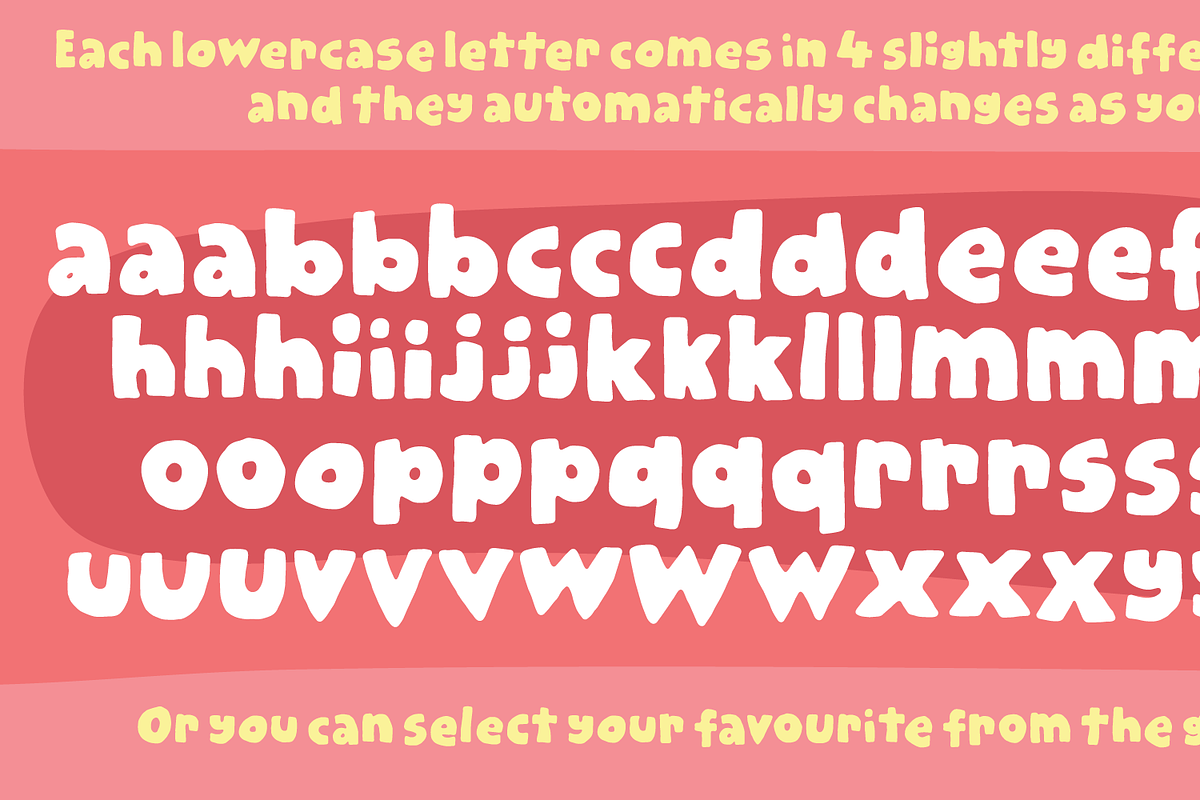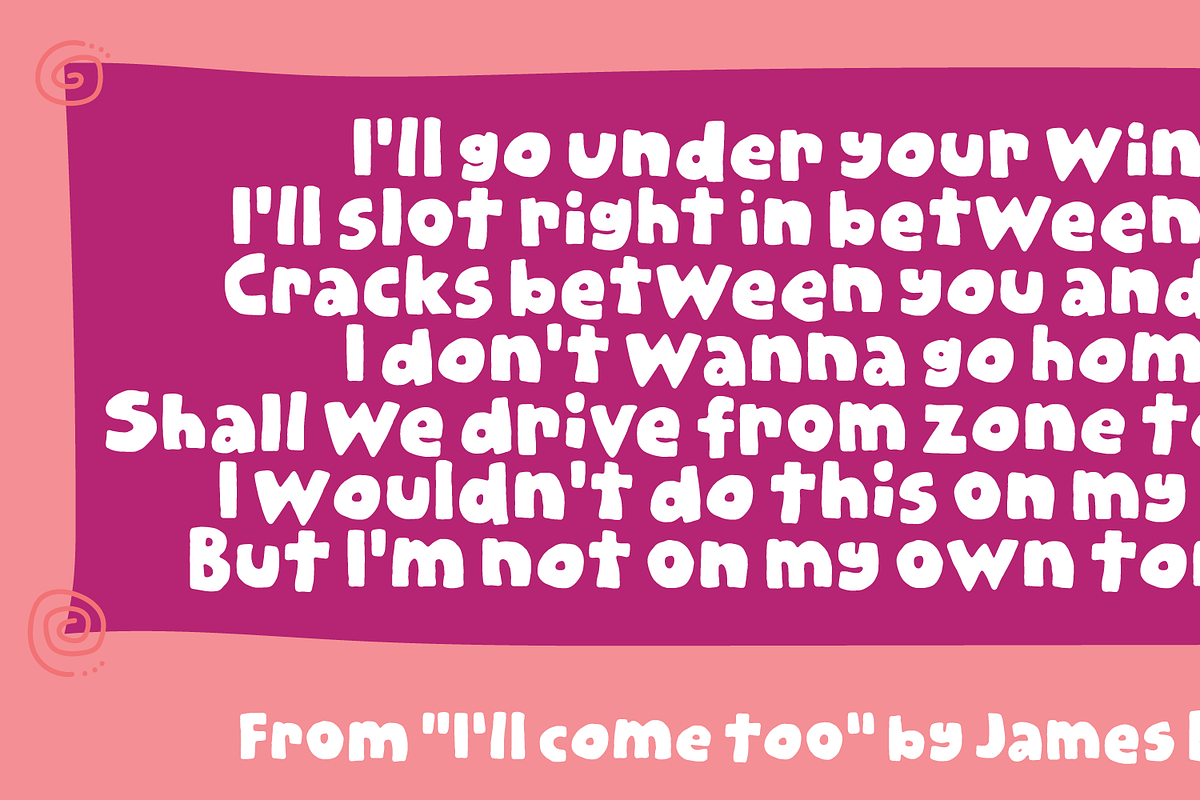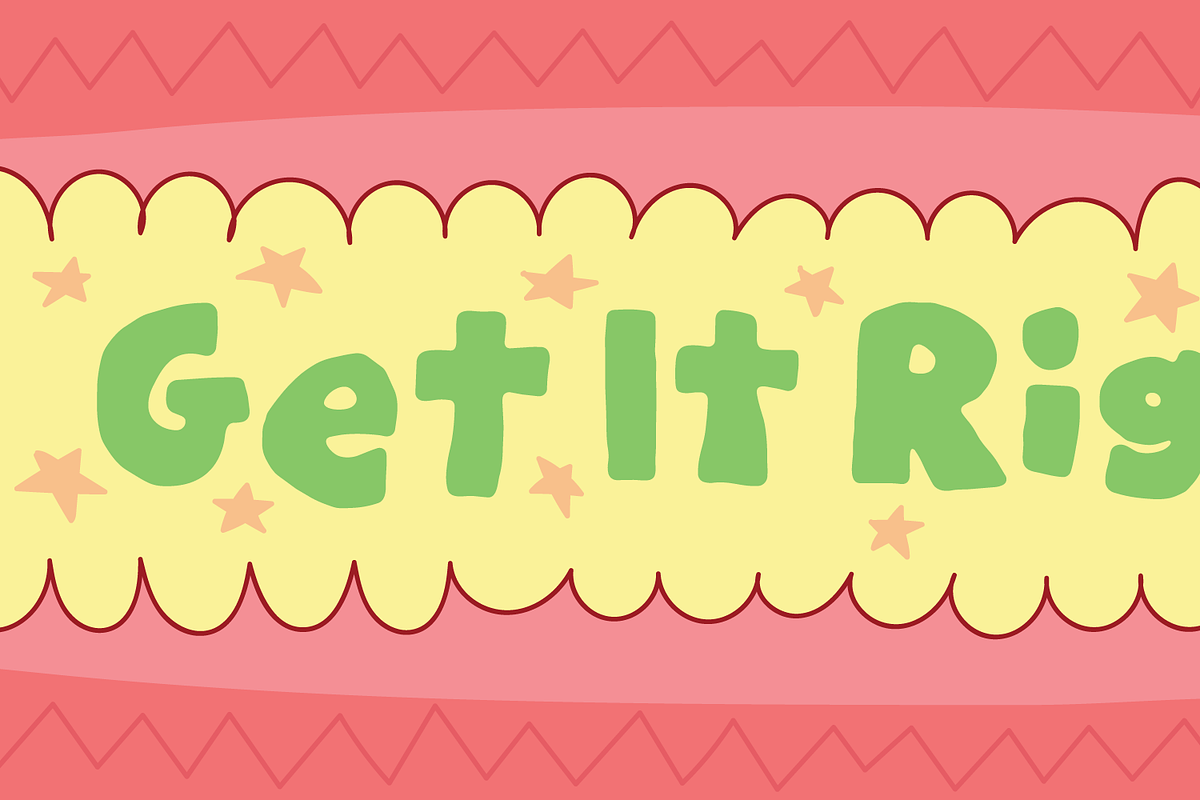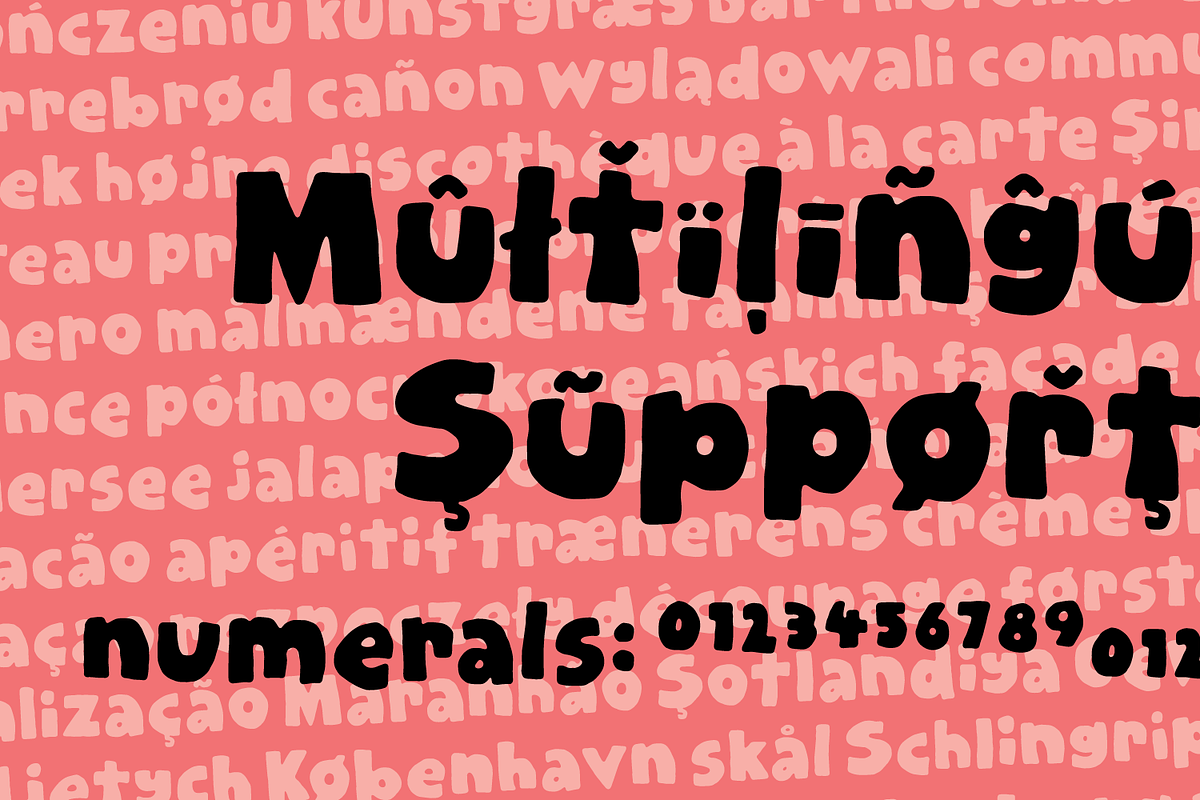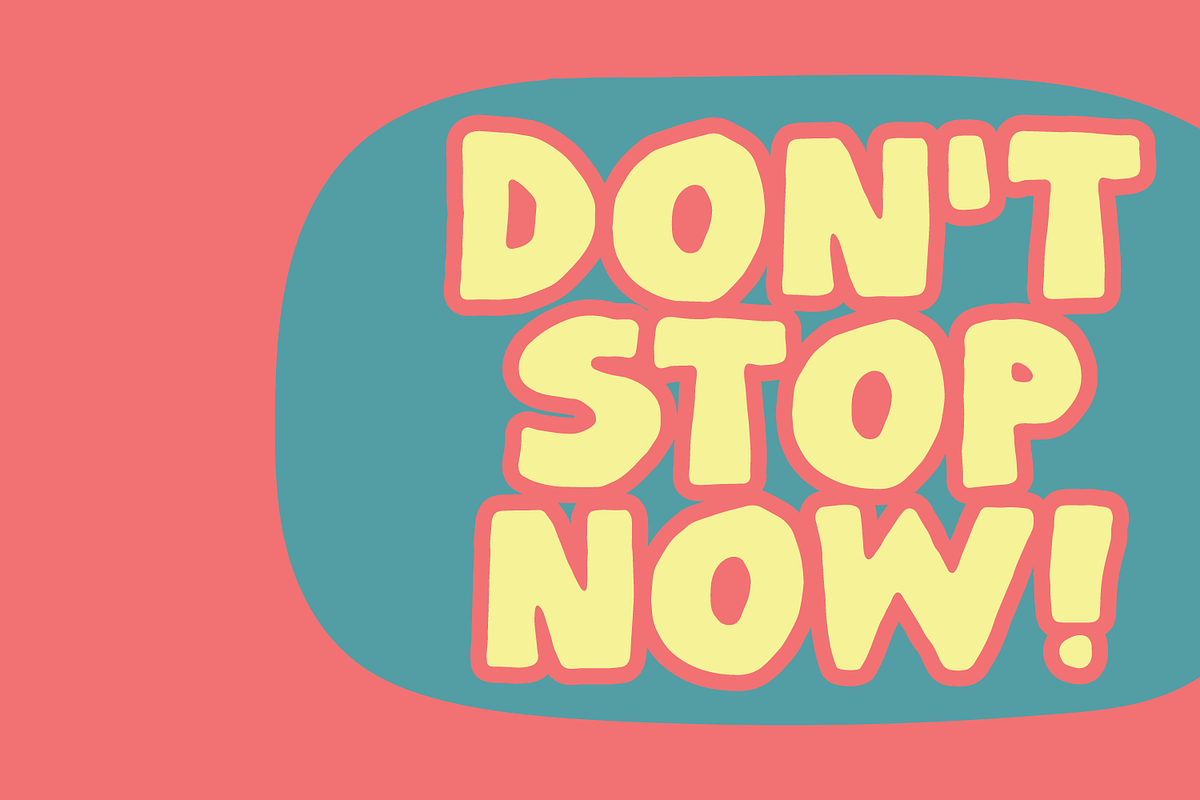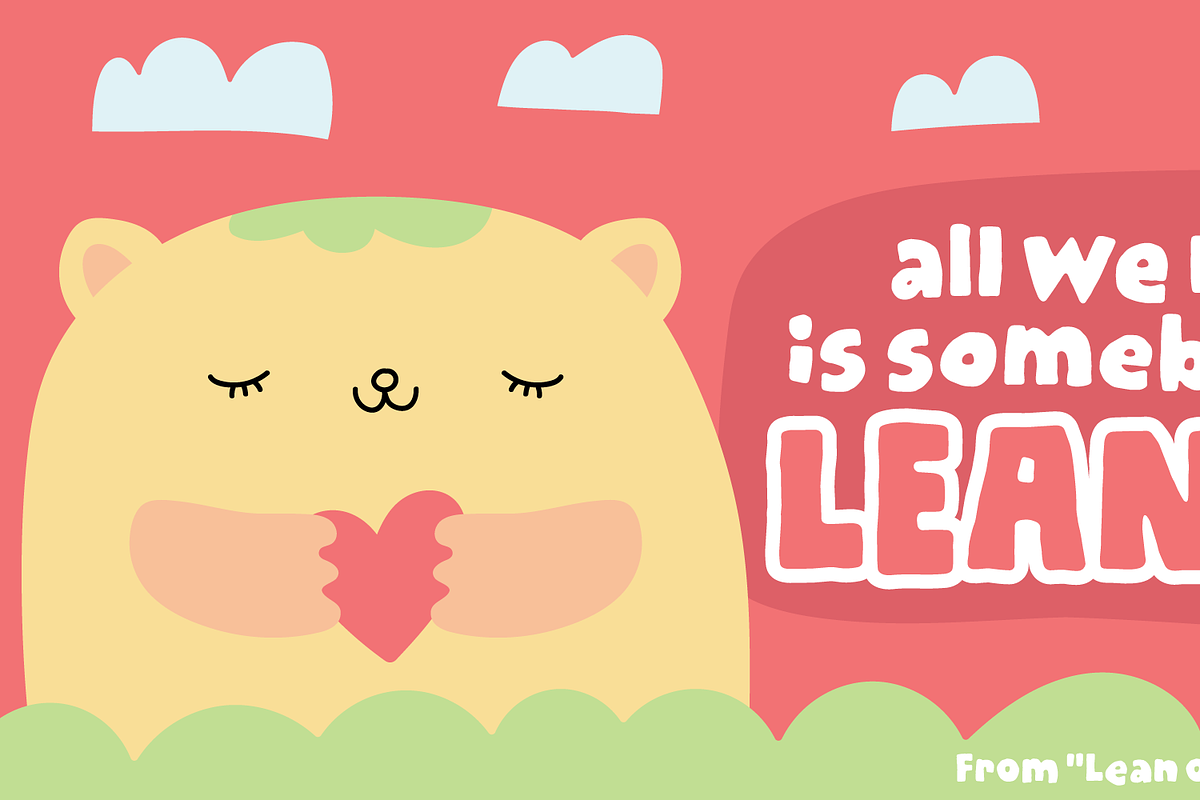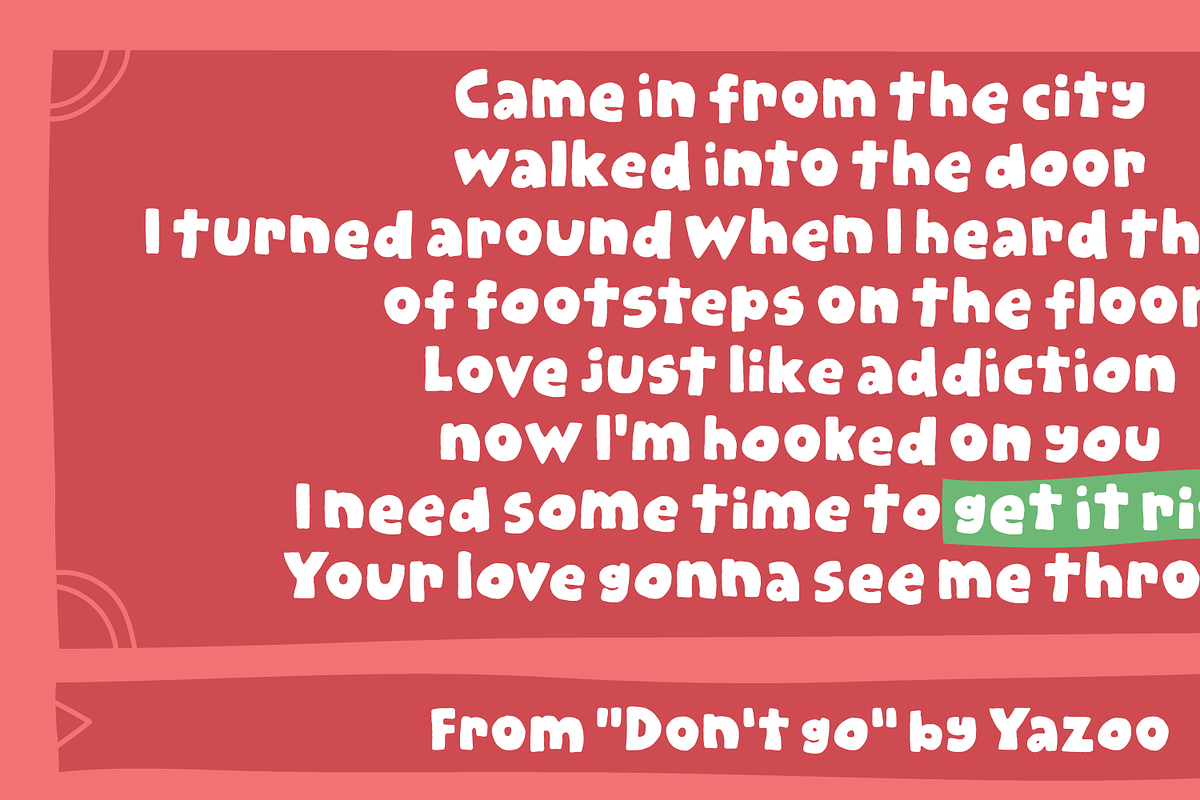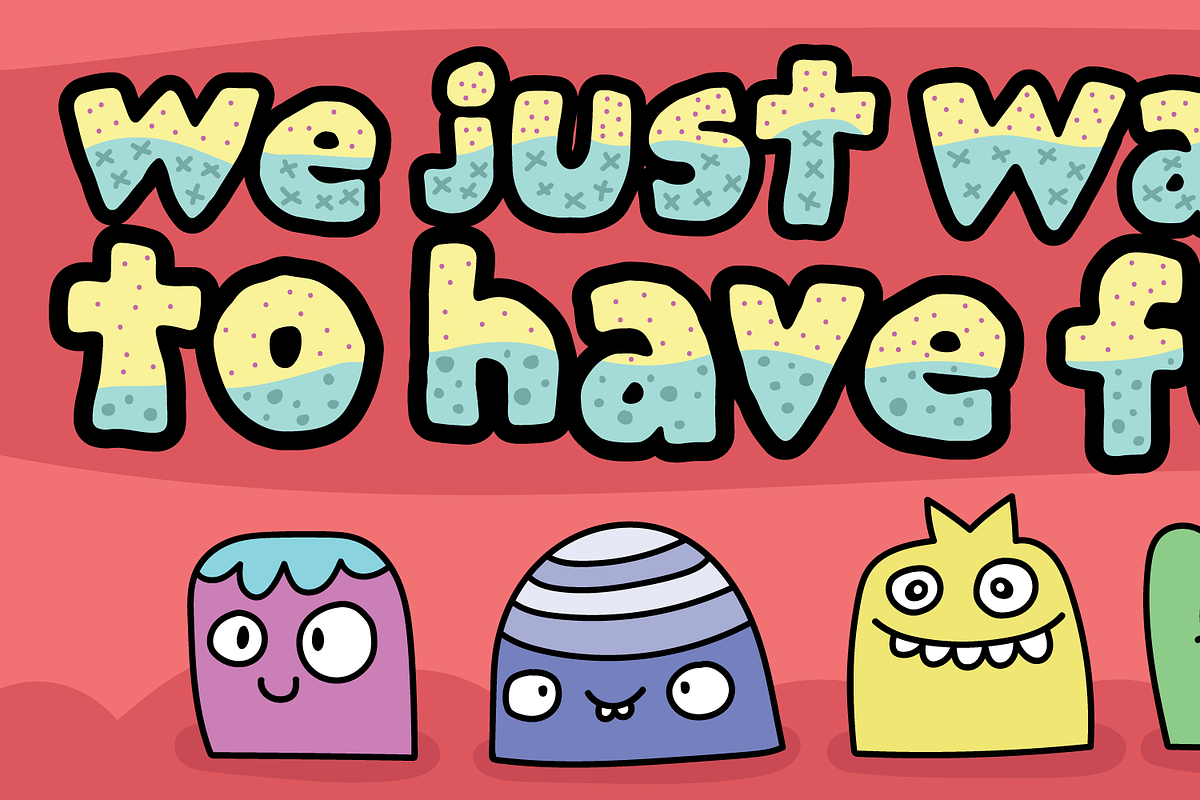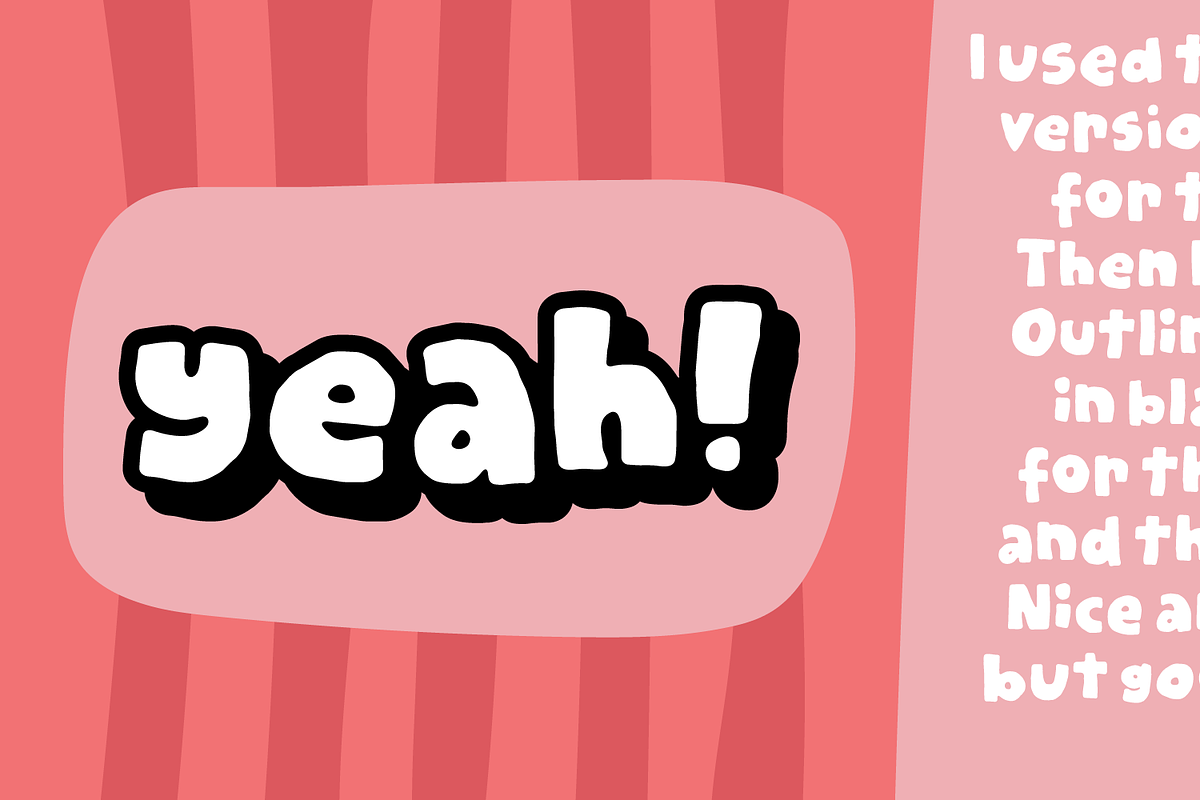
Get It Right - today or tomorrow! :)
A nice little charming handmade font. Super friendly and useful for something to do with stuff for kids, creative posters, organic products and comic related things.
Comes in both Regular version and a fancy thick outlined version.
Contextual Alternates
Contextual Alternates is a super nice feature. In this case I have added XXX versions of each letter, and they automatically changes as you type. Or, you can manually choose the letter(s) that you wish. This is a great way to avoid obvious repeating letters, making your text look more vivid, vibrant and organic.
In order to make the font appear more vivid and lively, I have added Ligatures in order to avoid obvious repeating letters.
Subscript and Superscript
Normally typedesigners resizes the numbers to make Subscript and Superscript. I do that on occasions as well, but in this case I have drawn the numbers, instead of resizing them. That way they appear more natural, organic and unique.
Fractions
Fractions are nice having available. You skip the work of resizing the numbers yourself, because I have done all the work for you!
This font comes with extensive multilingual support, and supports loads of different languages.